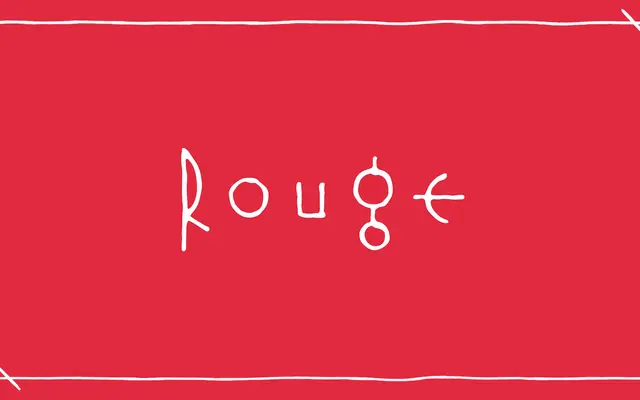
An abstract display face with letterforms derived from the smeared trace of lip rouge on glass.
The design takes its starting point from a literal image: lip rouge smeared across a windscreen, then abstracted into letterforms. The resulting shapes sit somewhere between organic and geometric, and the foundry notes that different viewers read them differently, some finding them natural, others mathematical or archaic. Best suited to editorial headlines, packaging or identity work where ambiguity and emotional charge are assets.
Highly abstracted letterforms inspired by smeared lip rouge make this a display typeface with no clear structural lineage; organic yet geometric qualities place it firmly in expressive or experimental display territory.